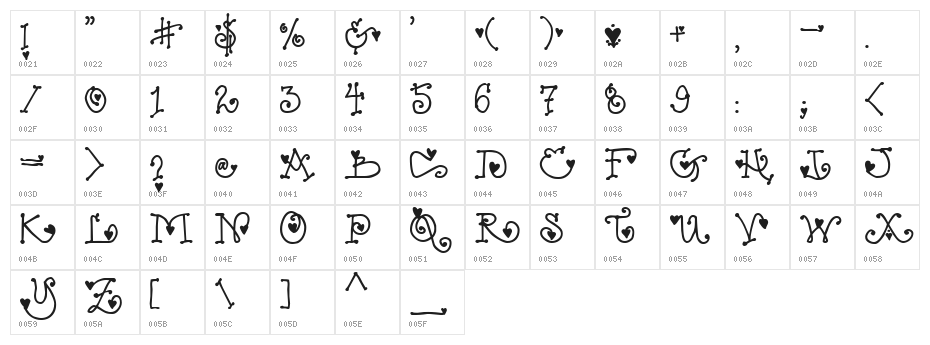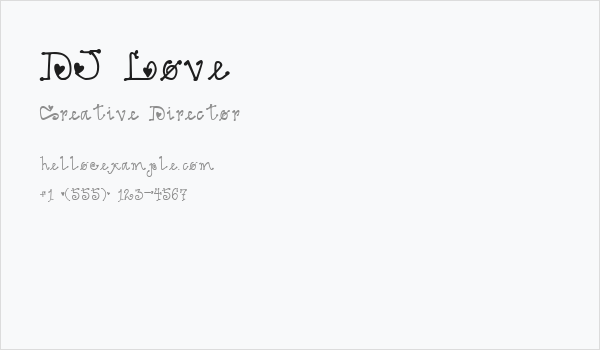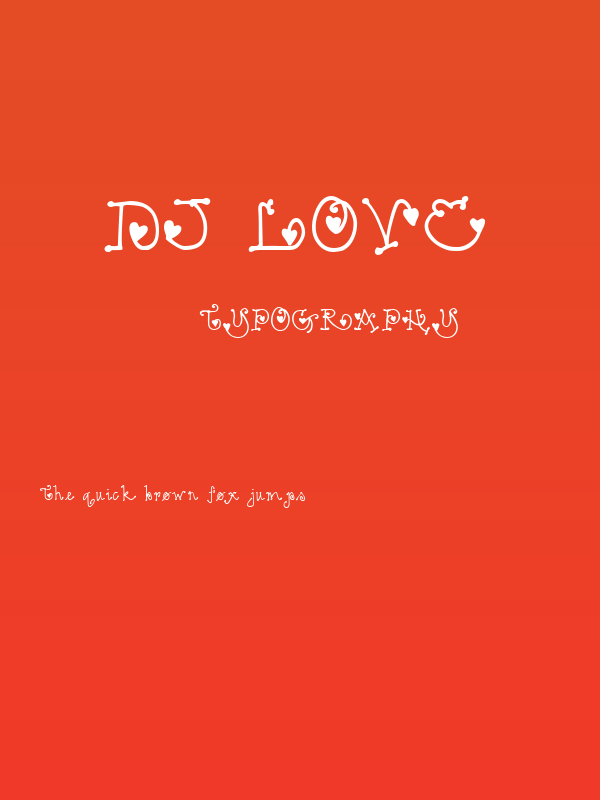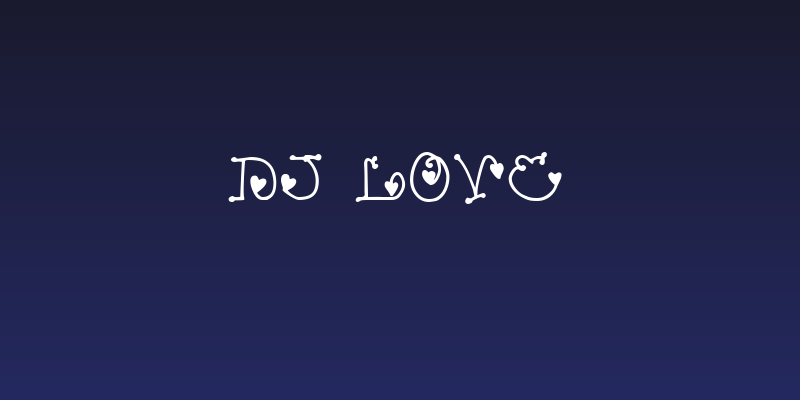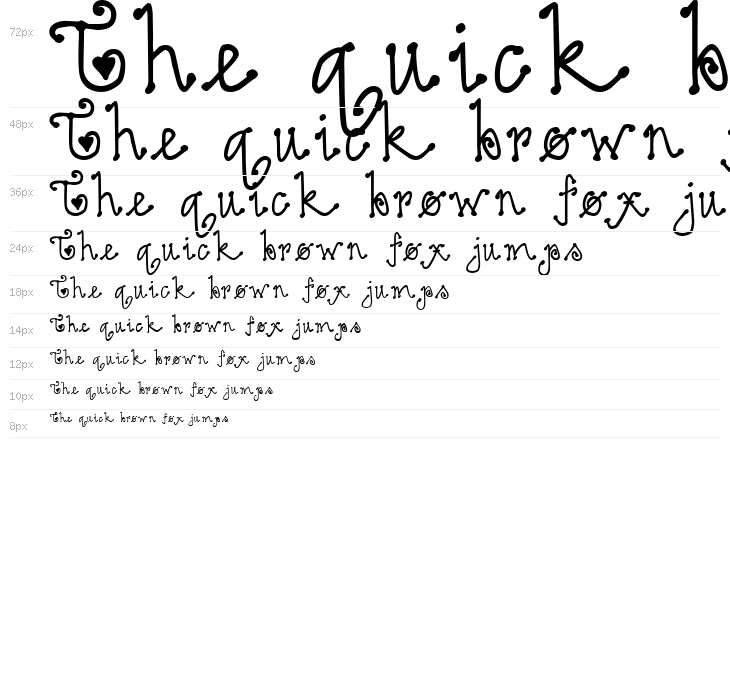
DJ Love Font
DJ Love Description
This whimsical and playful font features a unique blend of decorative elements and a hand-drawn aesthetic. Each character is adorned with heart motifs and swirls, adding a romantic and artistic touch. The uppercase letters are bold and intricate, while the lowercase letters maintain a charming, flowing style. Numbers and special characters continue the theme with creative embellishments, making this font ideal for projects that require a touch of elegance and fun. The overall design is both eye-catching and expressive, perfect for capturing attention in creative works.
| Proposed Projects | Ideal for wedding invitations, greeting cards, romantic branding, and artistic posters. |